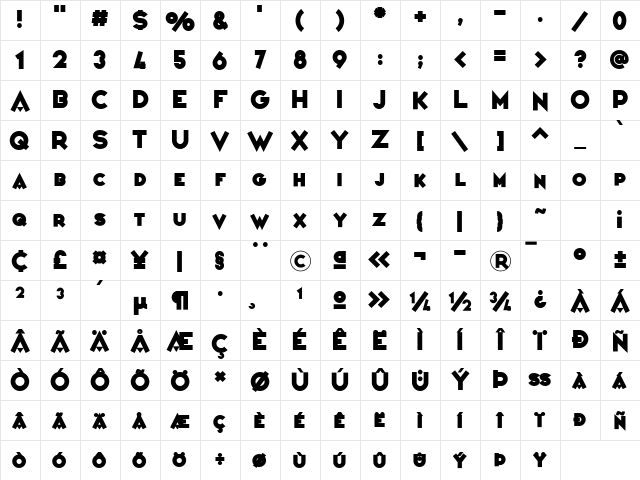
Varietonfncier Regular Free Font
Varietonfncier Regular
Foundry: Peter Wiegel
Designer: Peter Wiegel
Complete Varietonfncier Regular glyph index. Displaying only characters natively supported by Varietonfncier Regular font.
Design Context for Varietonfncier
Varietonfncier is a composed and adaptable typeface that performs quietly and consistently across a wide range of design contexts.